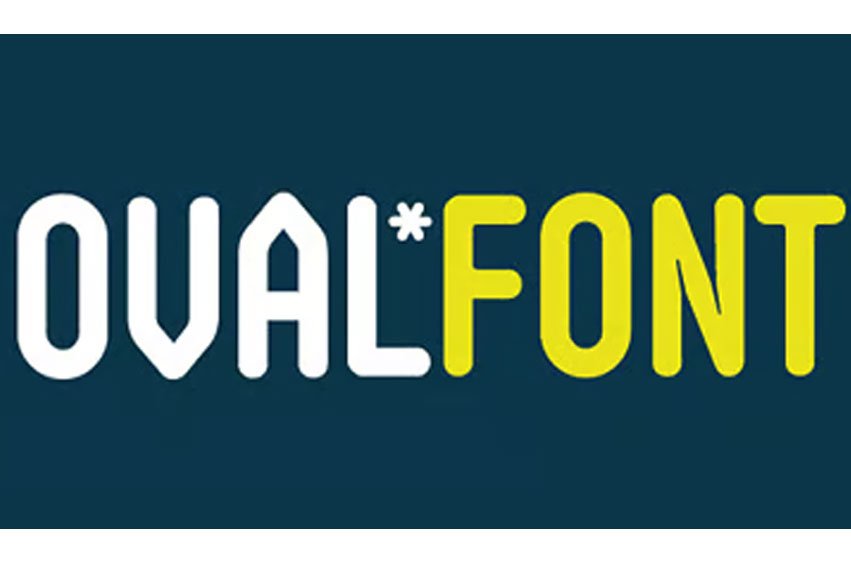
Oval Font is a custom sans font which is applicable for any type of graphic design – web, print, motion graphics etc and perfect for t-shirts and other items.
Every letter has a unique and beautiful touch, which will make your design come alive!